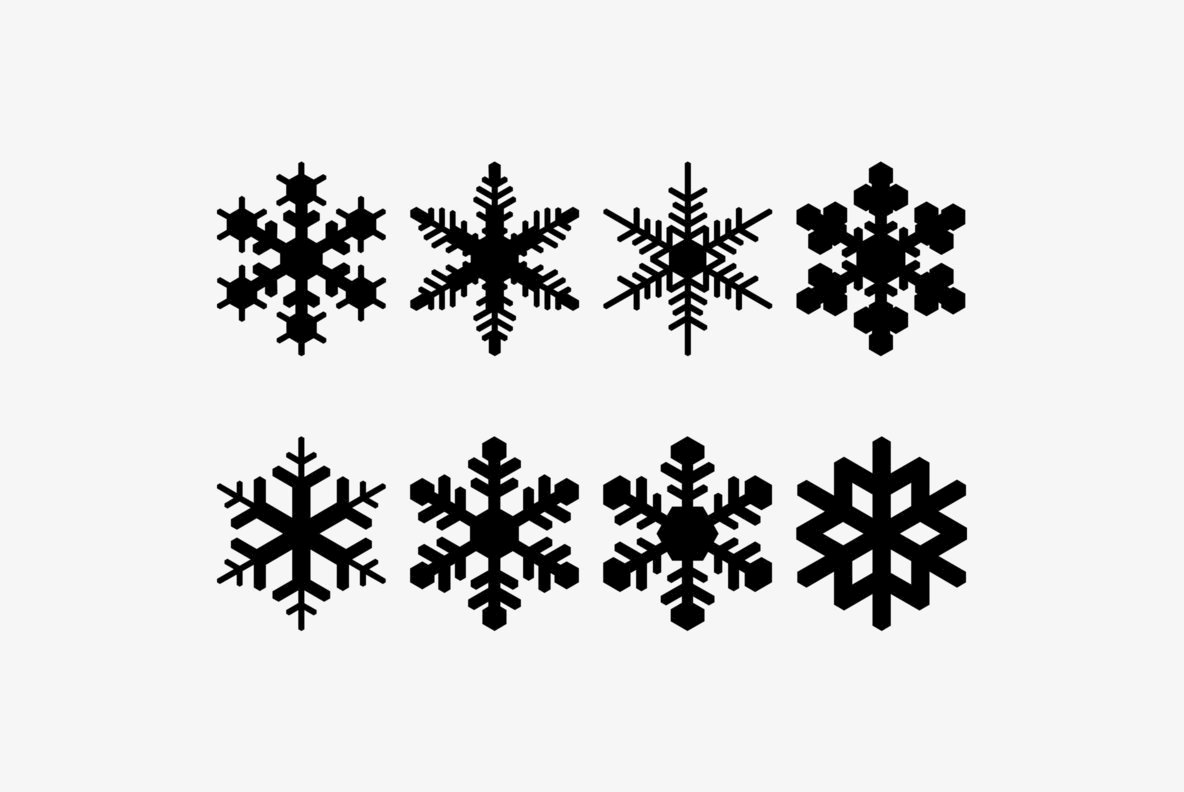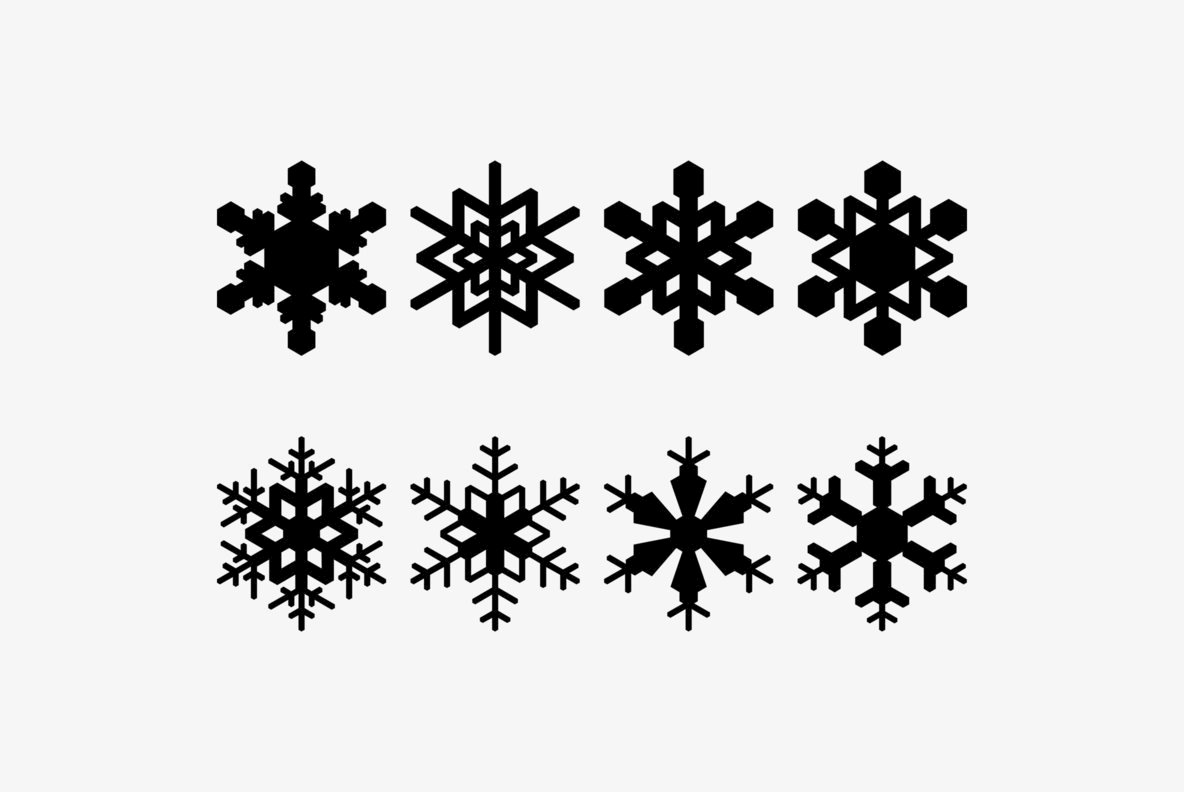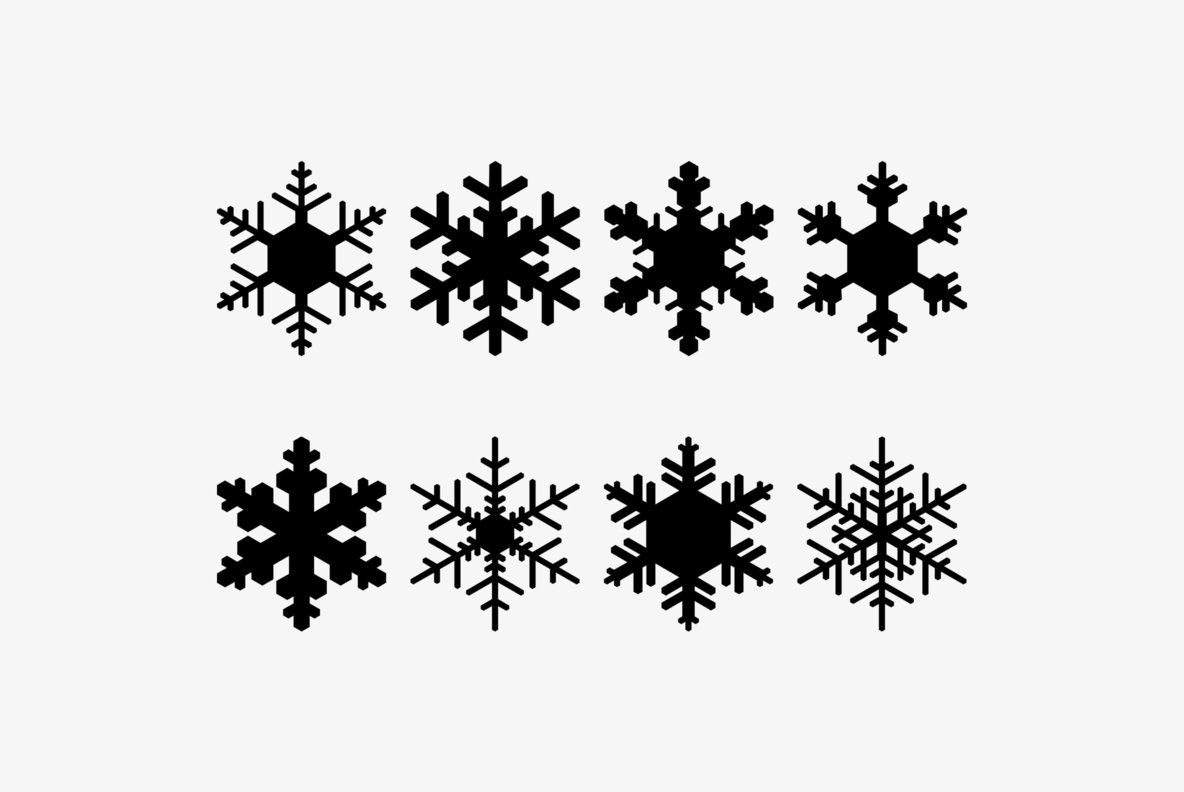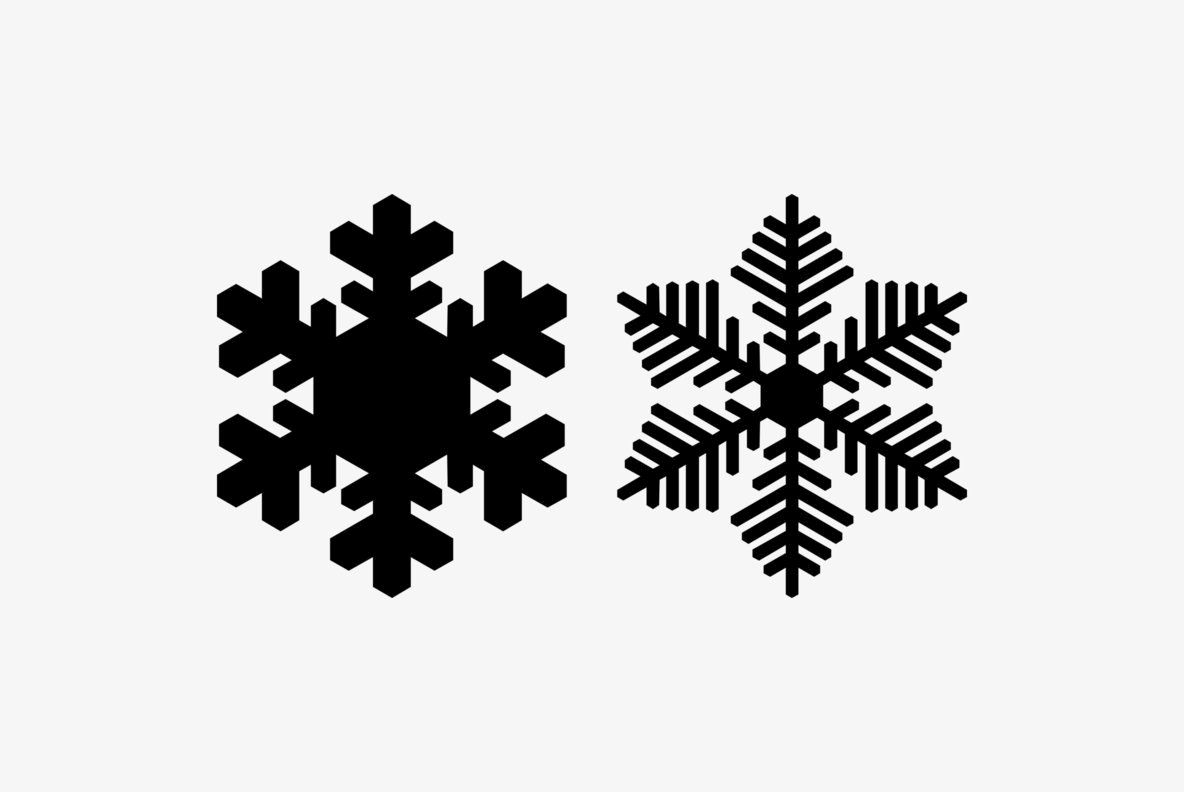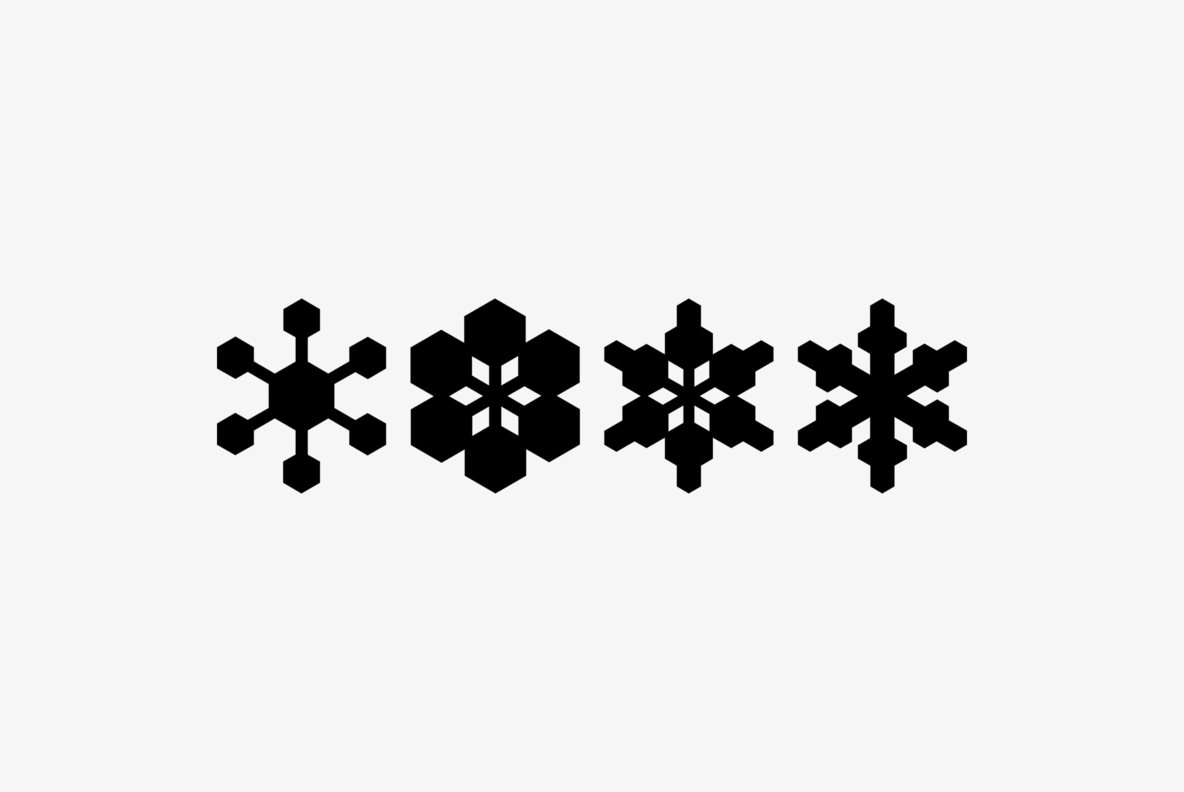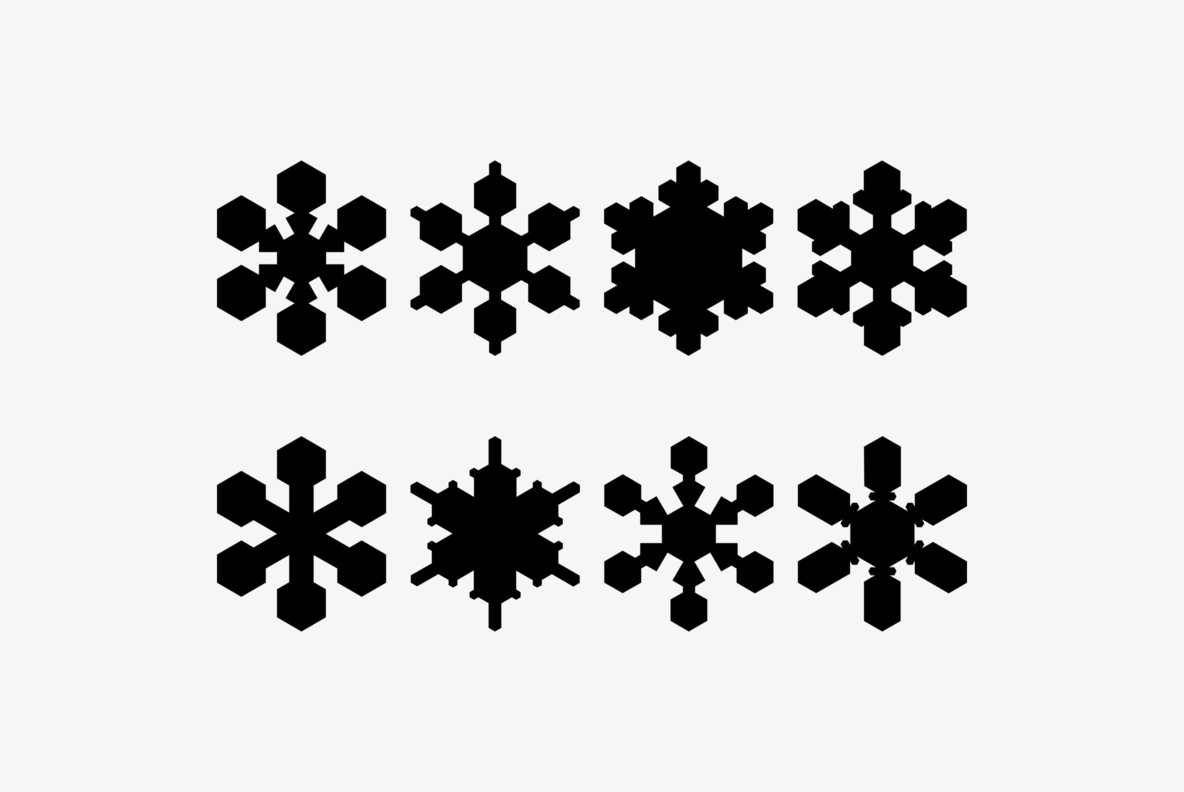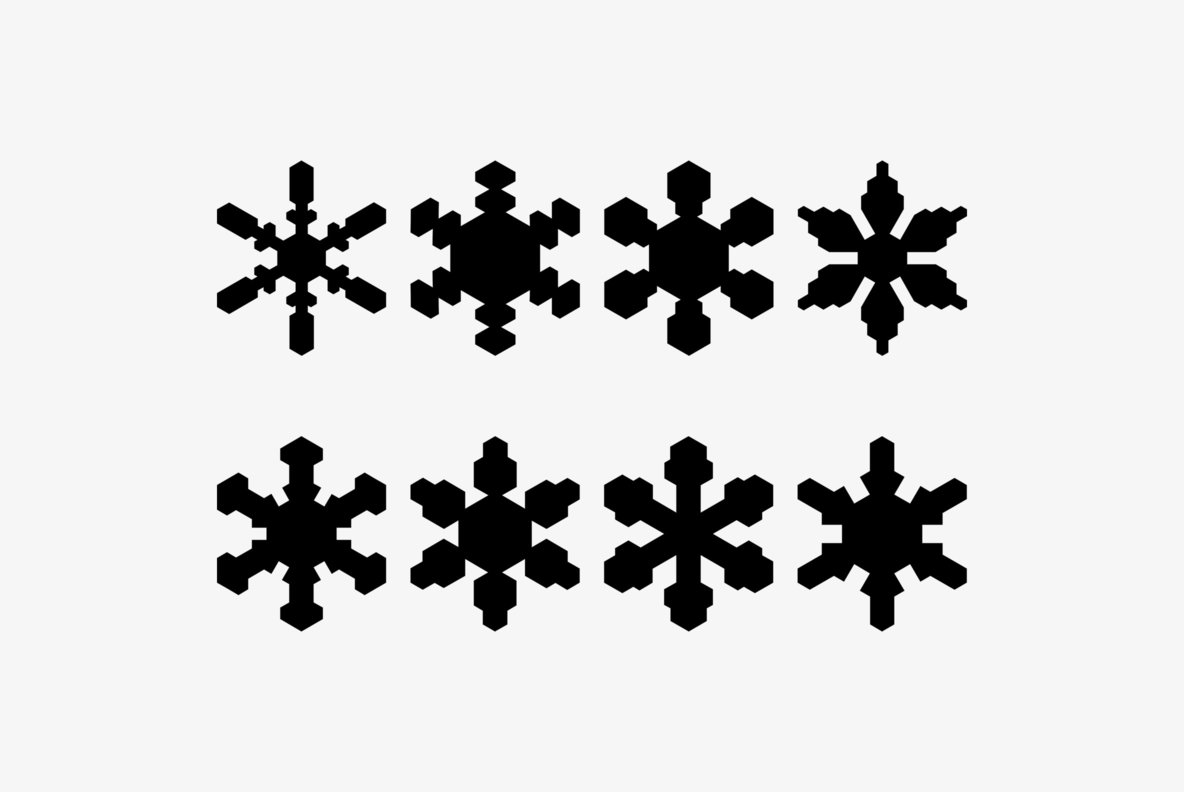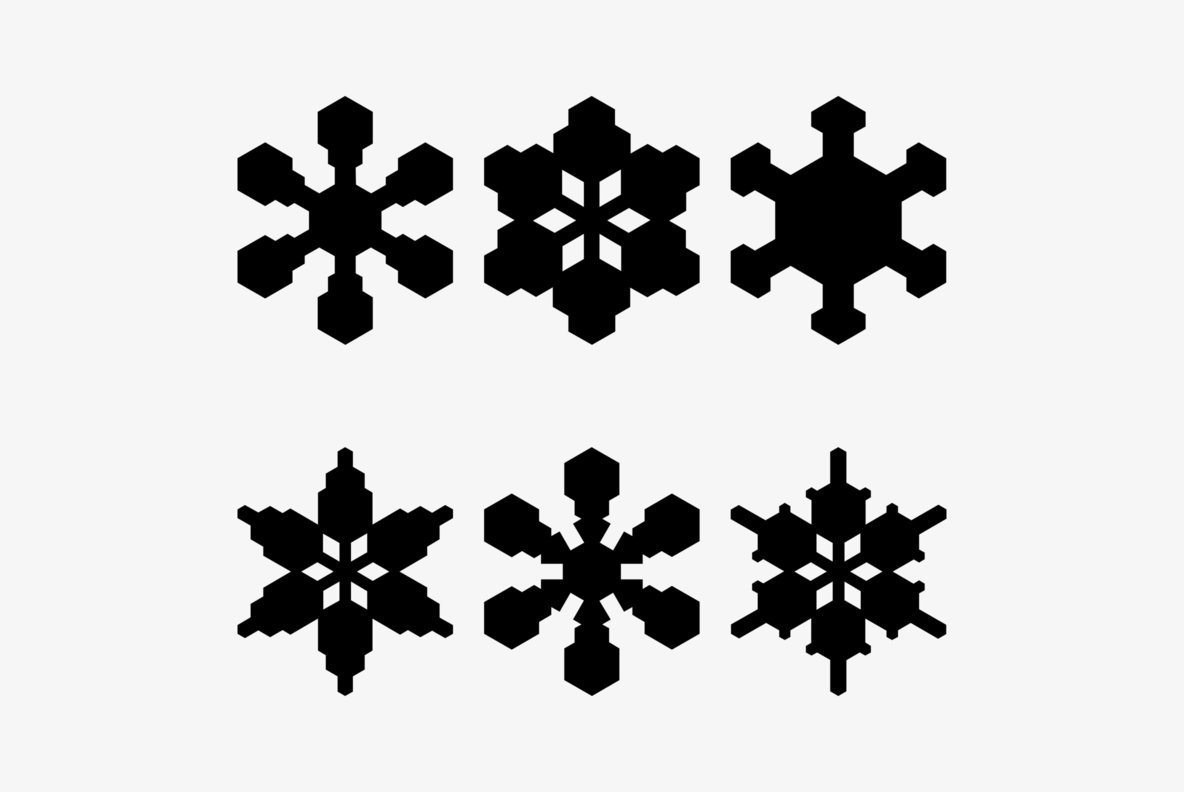
Snowflake Assortment: Intricate Winter Designs
Embrace the beauty of winter with the Snowflake Assortment, featuring an extensive collection of 94 unique snowflake designs. Perfect for adding a touch of elegance to your seasonal projects, these intricate patterns capture the delicate nuances of nature's own handiwork.
• Diverse Collection – An array of 94 distinct snowflake designs.
• Intricate Details – Capture the complexity of natural snowflakes.
• Versatile Use – Ideal for digital designs, print, and more.